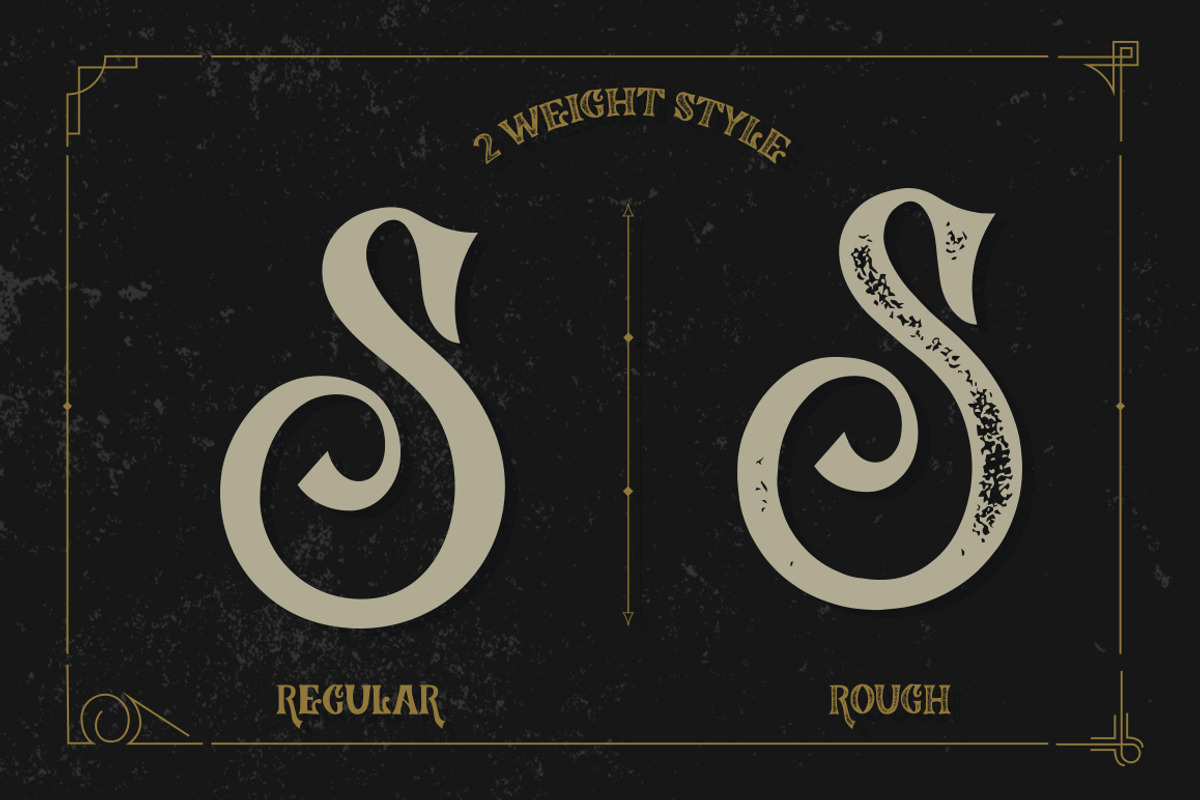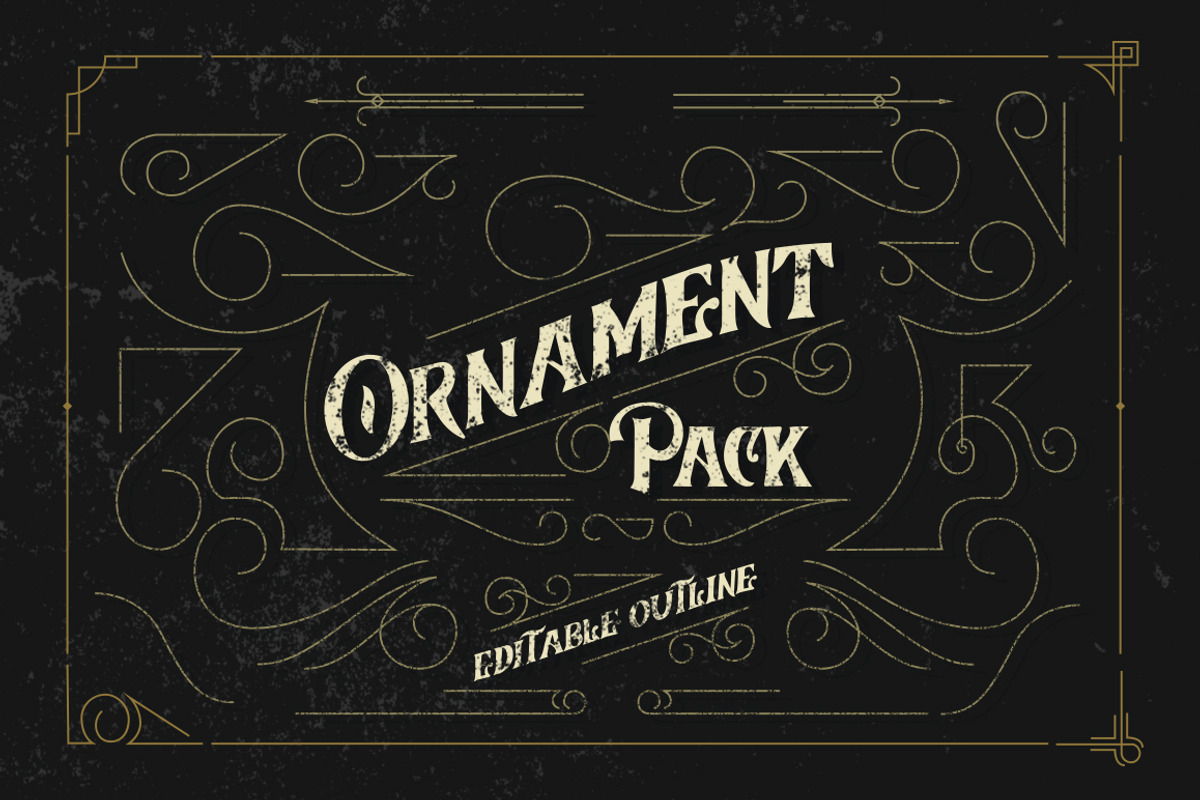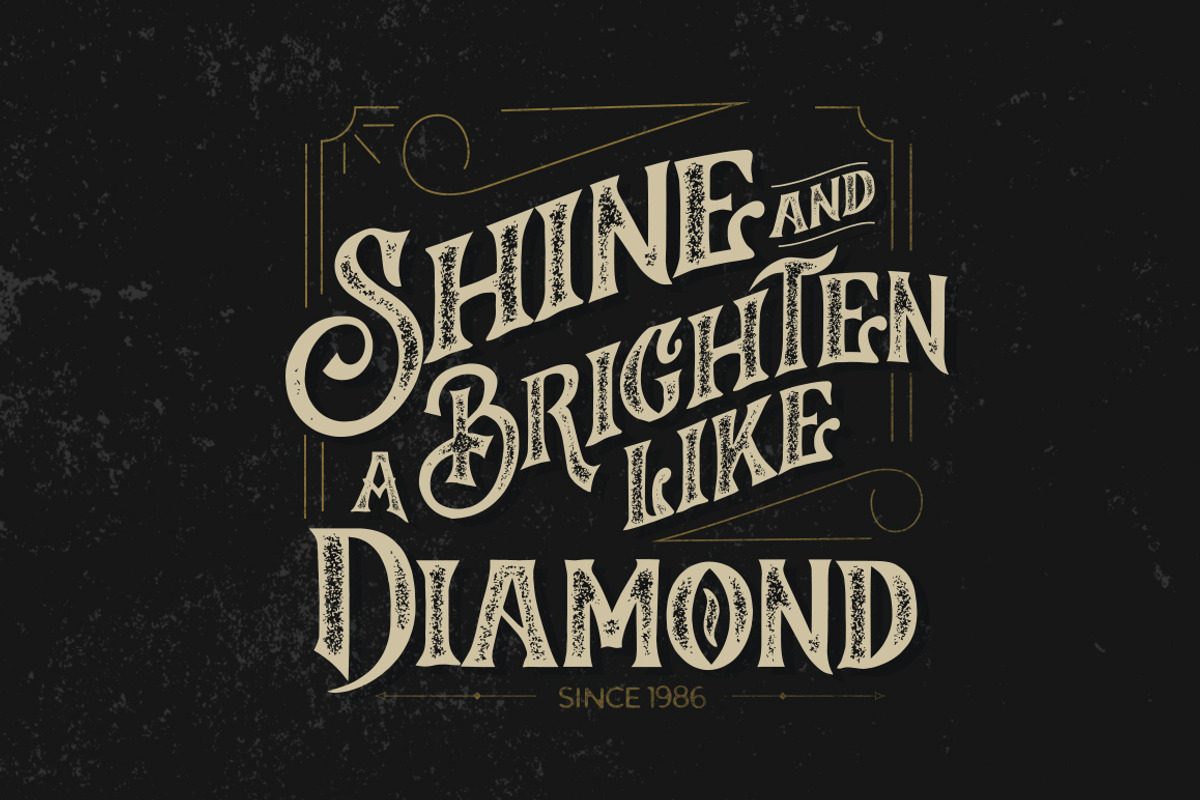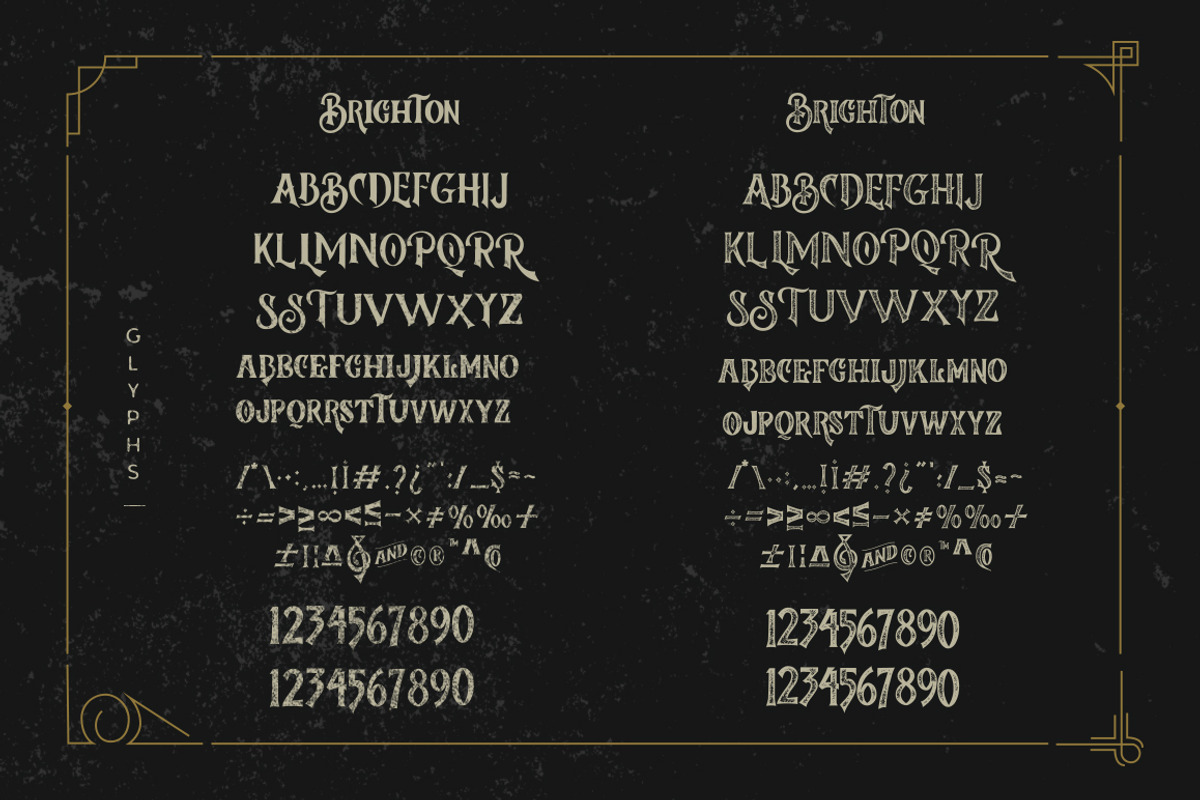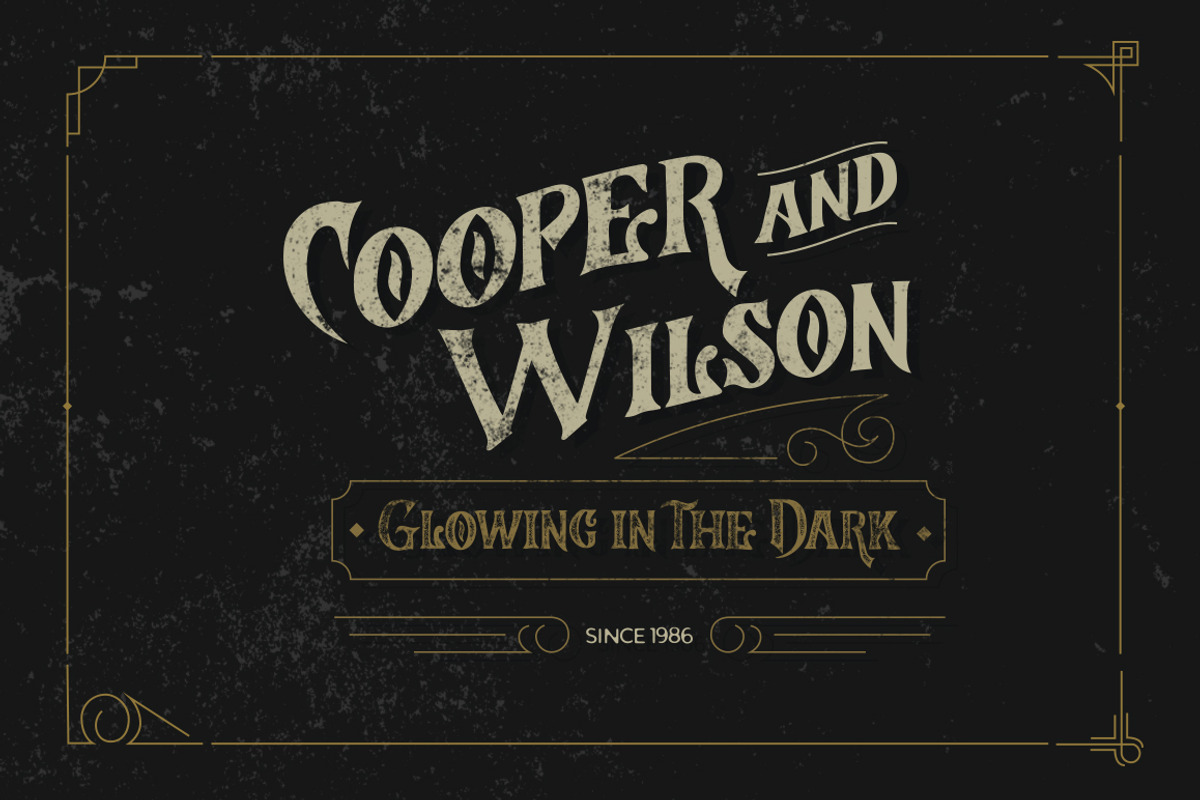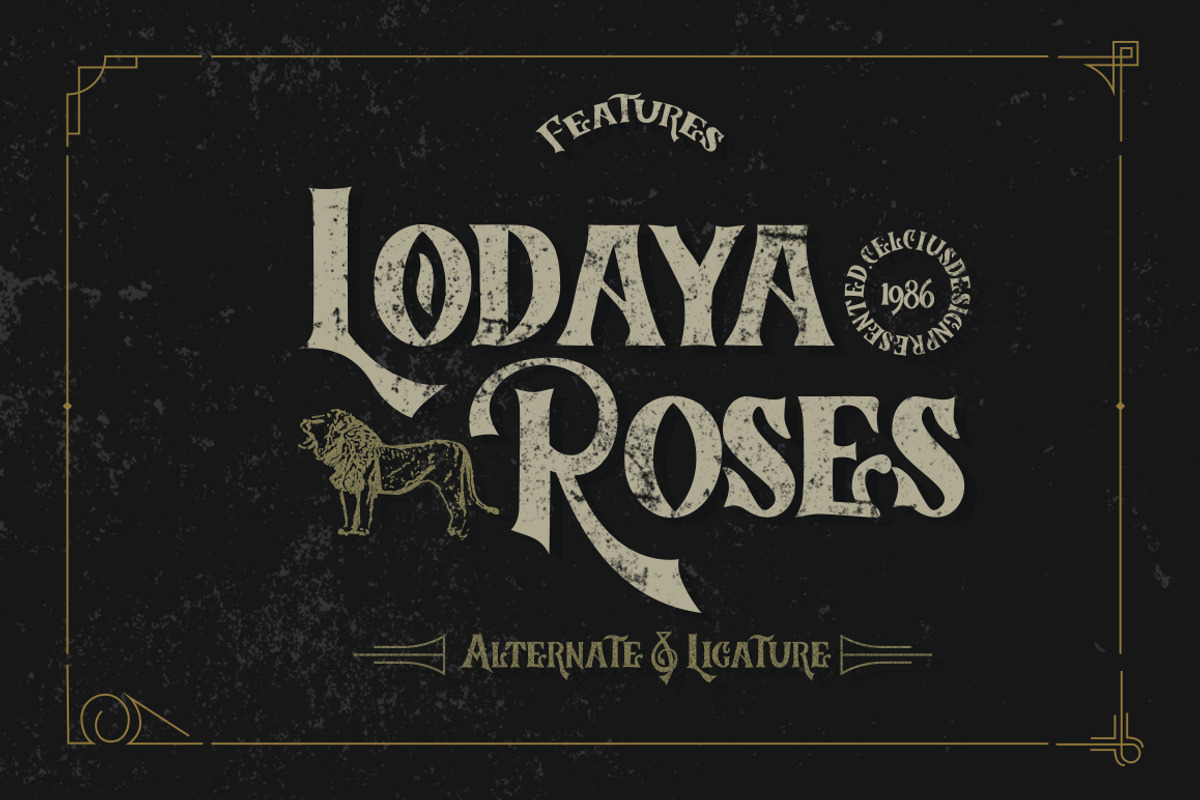
Brighton Typeface & Ornaments
Brighton Typeface & Ornaments by Fortunes Co is a font selected for branding, posters, packaging, typography.
Why Brighton Typeface & Ornaments is worth a look
Brighton Typeface & Ornaments by Fortunes Co fits naturally into Branding, posters, packaging, typography.